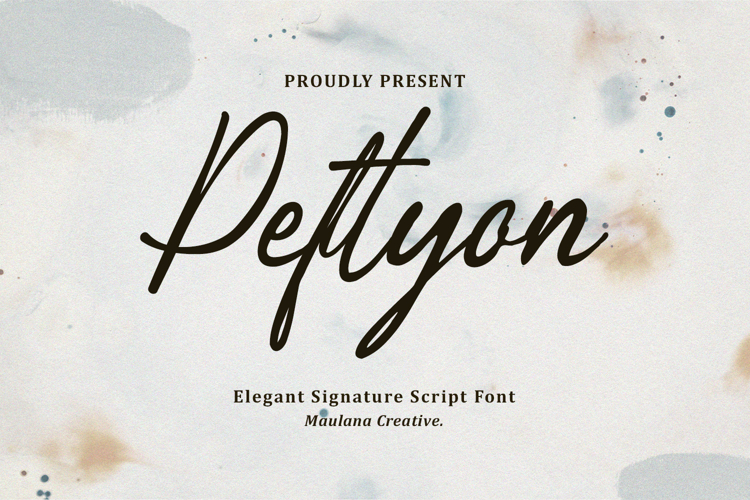
Peftyon Elegant Signature Script Font
Elevate your designs with Peftyon, a premium signature script font designed to exude elegance, awesome touch, and high-end sophistication. With its fluid, natural strokes and rhythmic flow, Peftyon perfectly mimics authentic hand-lettering, making it the ultimate choice for brands that want to feel bespoke and intimate.
Whether you are designing a luxury wedding invitation, a sleek fashion logo, or high-end social media content, Peftyon provides a seamless blend of style and readability. It comes packed with a full set of uppercase and lowercase letters, numerals, punctuation, and special ligatures to give your text a truly custom, handcrafted look.
- Peftyon Script: Clean, elegant, and stylish.
- Ligatures: For that natural, flowing signature feel.
- Versatile Use: Perfect for logos, branding, photography watermarks, wedding stationery, quotes, and editorial layouts.